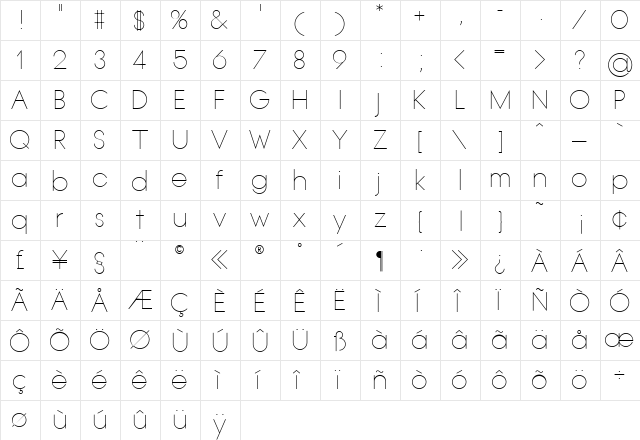
OLRoundGothic Regular
Design Context for OLRoundGothic Typeface
OLRoundGothic has the quiet confidence of well-executed sans-serif typography: versatile, unobtrusive, and dependable at any size.
Font Pairing: Works well alongside a characterful serif or display font that can carry the expressive load while OLRoundGothic handles the functional copy.
Pro Tip: Pair OLRoundGothic with a display or serif font for headlines — its neutral character makes it an excellent supporting player in complex typographic systems.